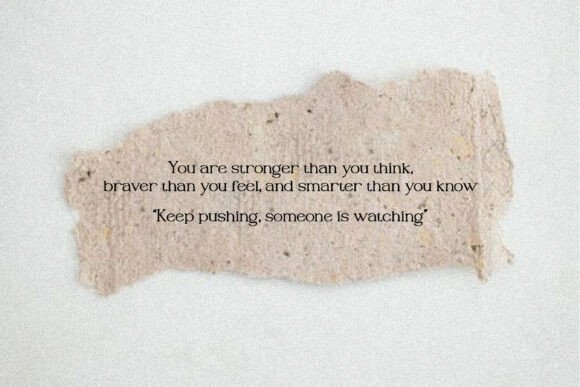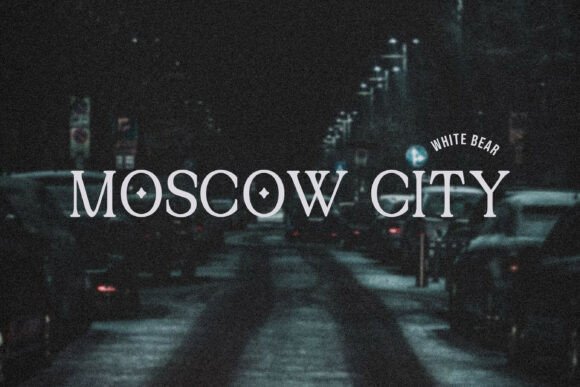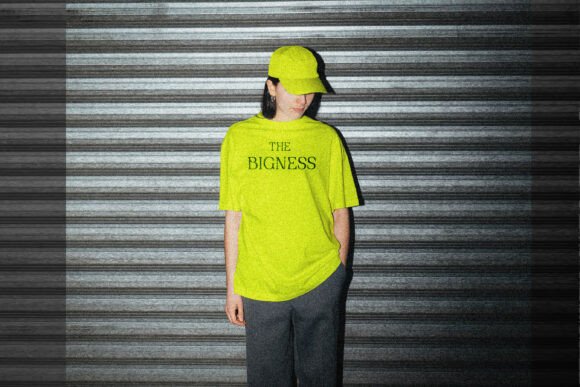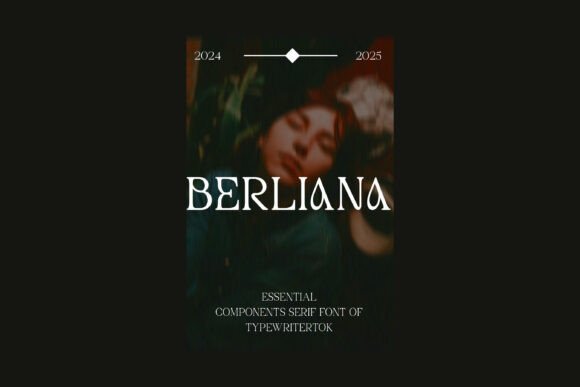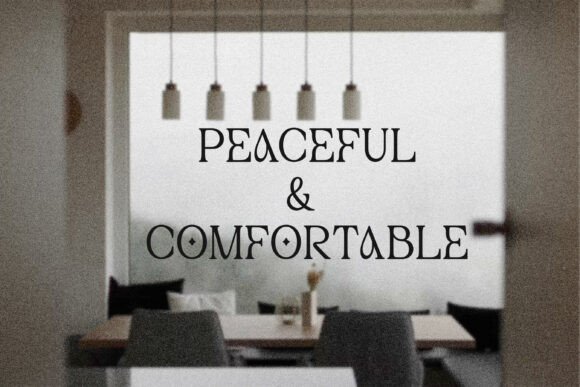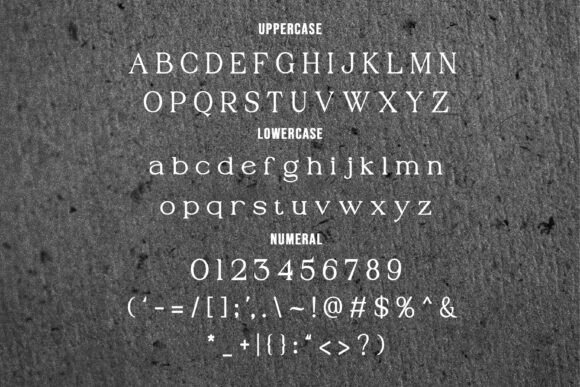
The Perfect Touch of Elegance: Unlocking the Power of the Asteriana Font
As designers, we’ve all been there – staring at a blank page, trying to convey the perfect message to our audience. But what if we told you there’s a secret to elevating your designs and making them truly unforgettable? It all starts with the right typography. For those seeking to add a touch of sophistication to their work, the Asteriana Font is a game-changer.
With its refined details and versatile style, the Asteriana Font is the ultimate tool for luxury branding, editorial design, and high-end fashion projects. Whether you’re creating a wedding invitation, packaging, or logo, this elegant serif font is sure to leave a lasting impression. Its beautiful alternates add a level of sophistication that’s hard to find in other fonts, making it a valuable addition to any designer’s toolkit.
- Unique Characteristics: Asteriana Font features a unique blend of modern and vintage elements, with intricate details and elegant lines, making it suitable for various design projects, including logos, branding, and editorial content.
Asteriana Font Review
Asteriana Font is a beautiful, elegant font that shines in certain contexts ✨. Its flowing curves and soft lines evoke a sense of luxury and sophistication, making it perfect for high-end branding and advertising materials. The font’s versatility is also a major plus, as it works well in both print and digital formats.
- ✨ Elegant and sophisticated design
- ✨ Versatile and suitable for various contexts
- ✨ Works well in both print and digital formats
Limited by:
- ⚠️ Limited to 2 font weights
- ⚠️ May not be suitable for body text due to its decorative nature
- ⚠️ May not be easily readable in small font sizes
Overall, Asteriana Font is a beautiful addition to any designer’s toolkit, but it’s essential to use it judiciously. Its limitations should be taken into account when choosing the right font for a project. With careful selection and styling, Asteriana Font can elevate a design to new heights.
Asteriana Font is ideal for:
- Magazine and brochure designs
For optimal results, use Asteriana Font in conjunction with high-quality images and design elements.